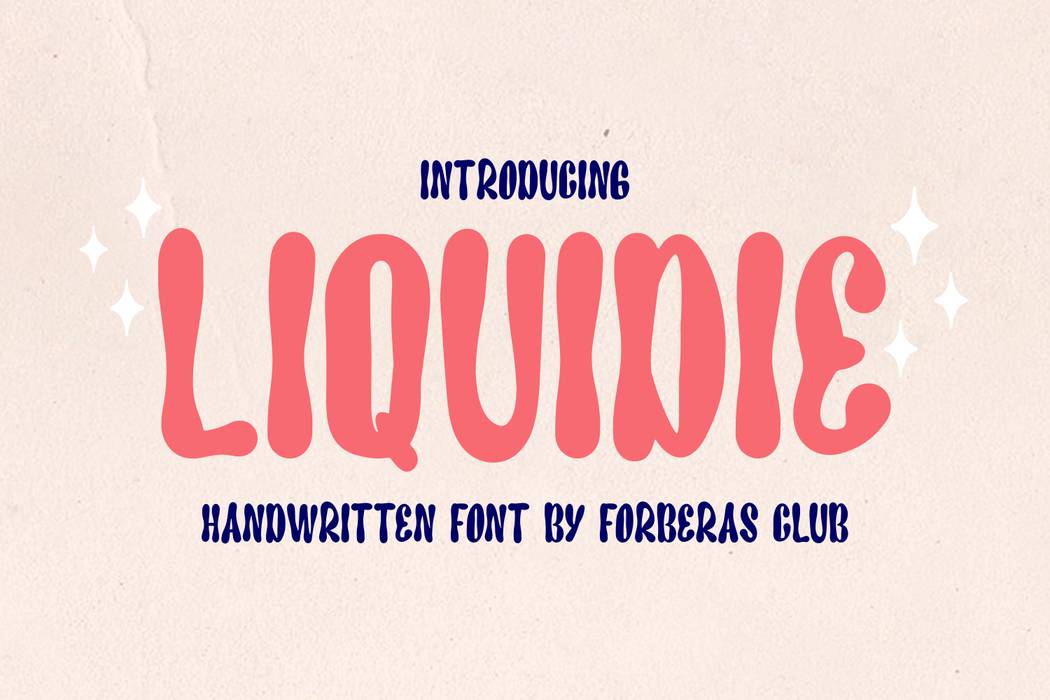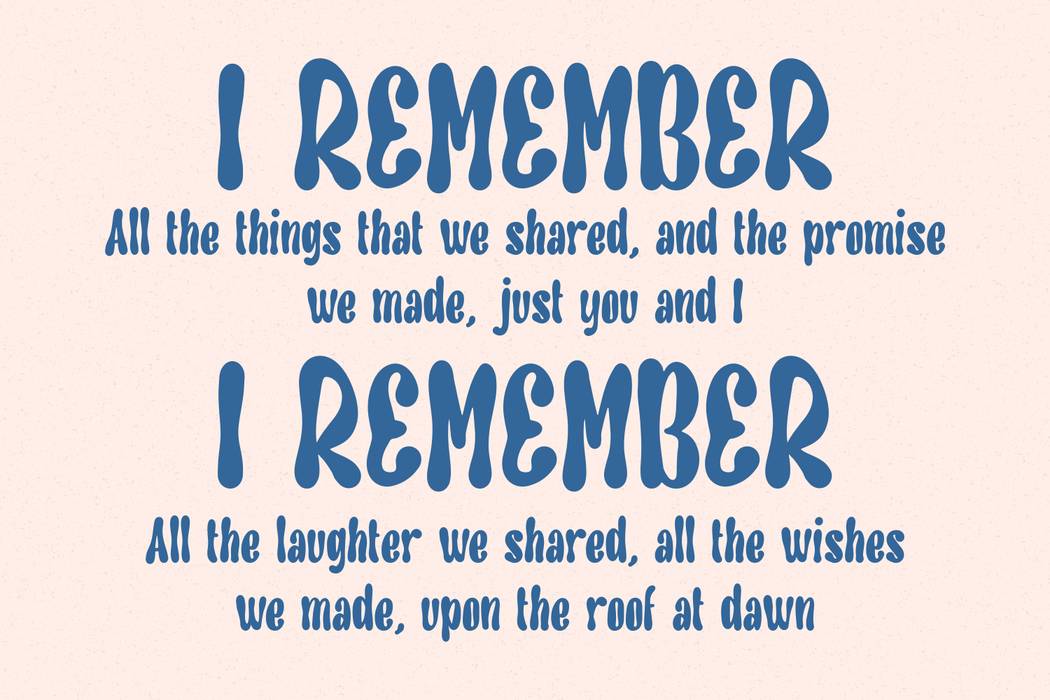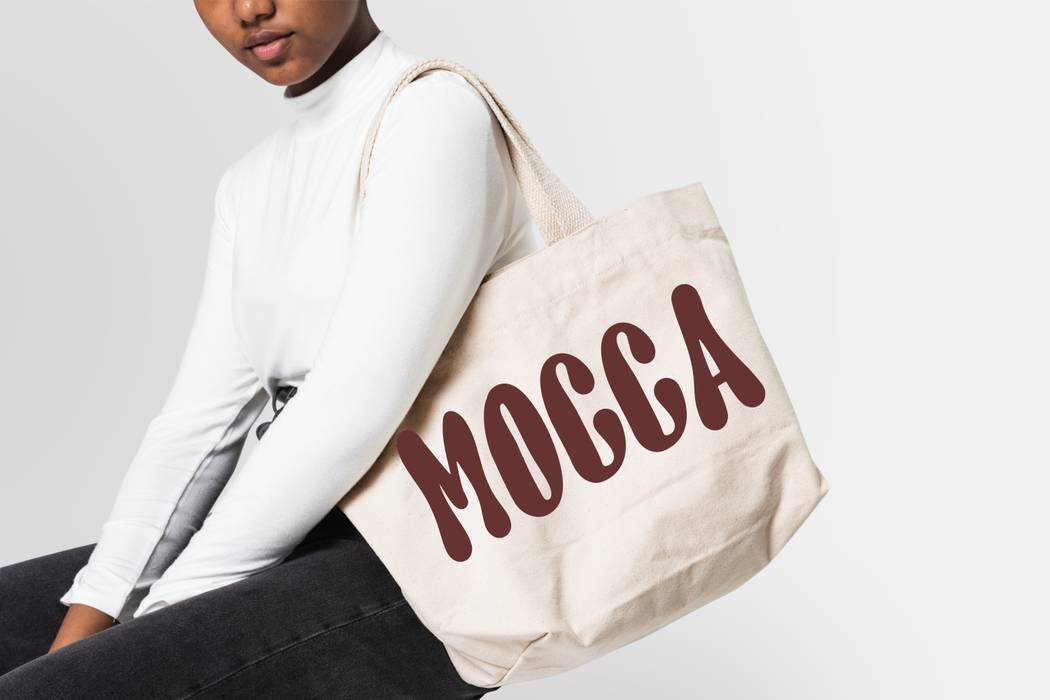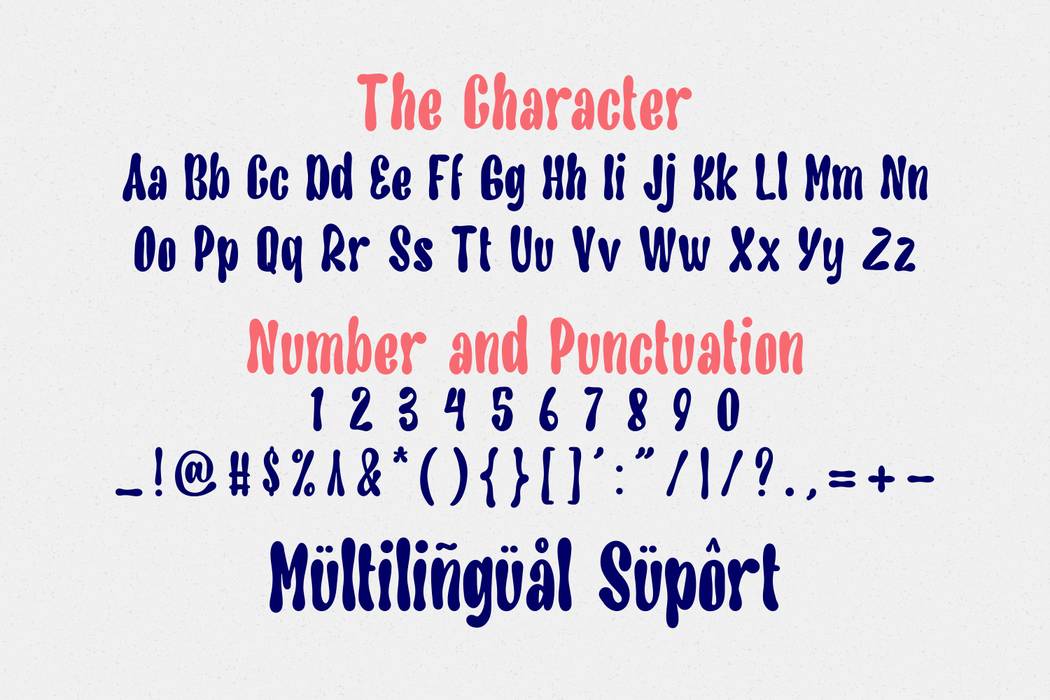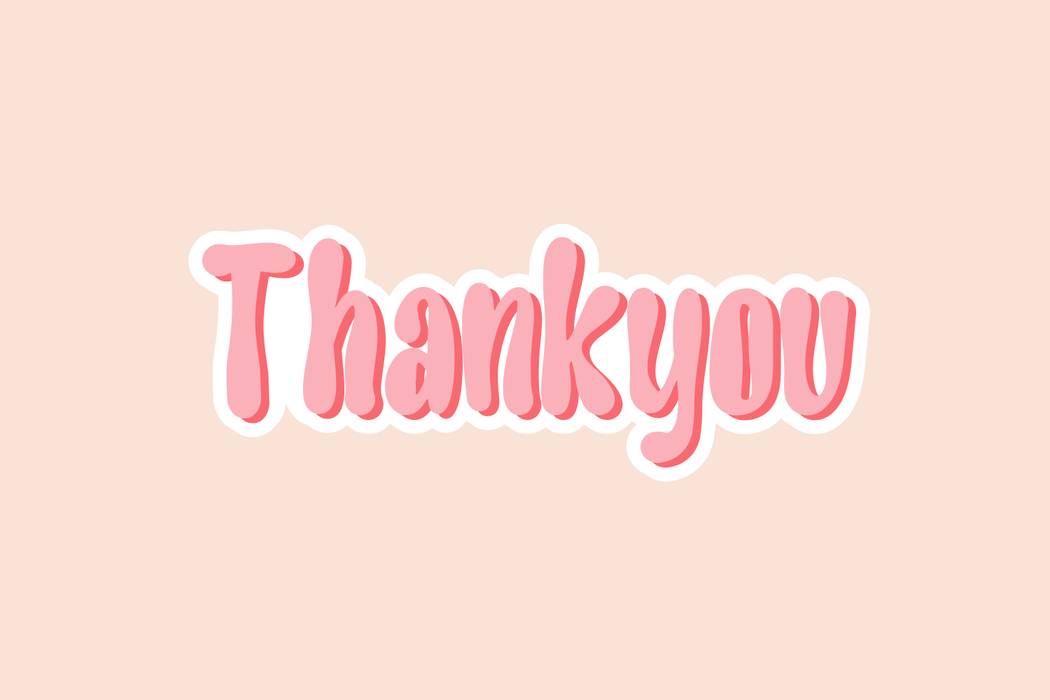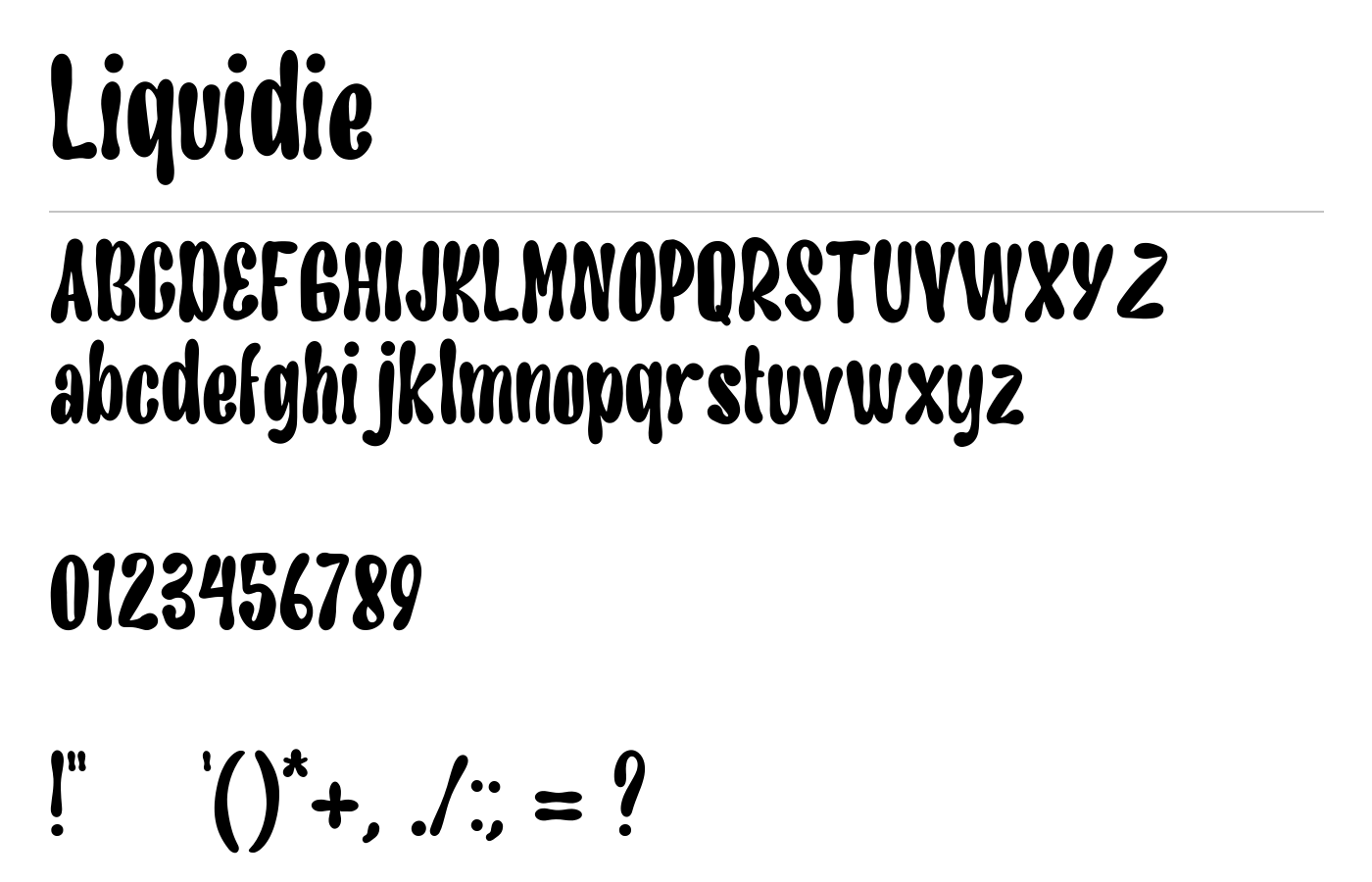
Liquidie is a playful and bold sans serif display font with a quirky, hand-drawn feel, featuring thick, irregular strokes that give it a lively and organic personality. Its rounded, slightly condensed letterforms and high x-height make it eye-catching and fun, ideal for creative branding, posters, and casual editorial use where a friendly, informal vibe is desired.
Liquidie Font
About Liquidie Font